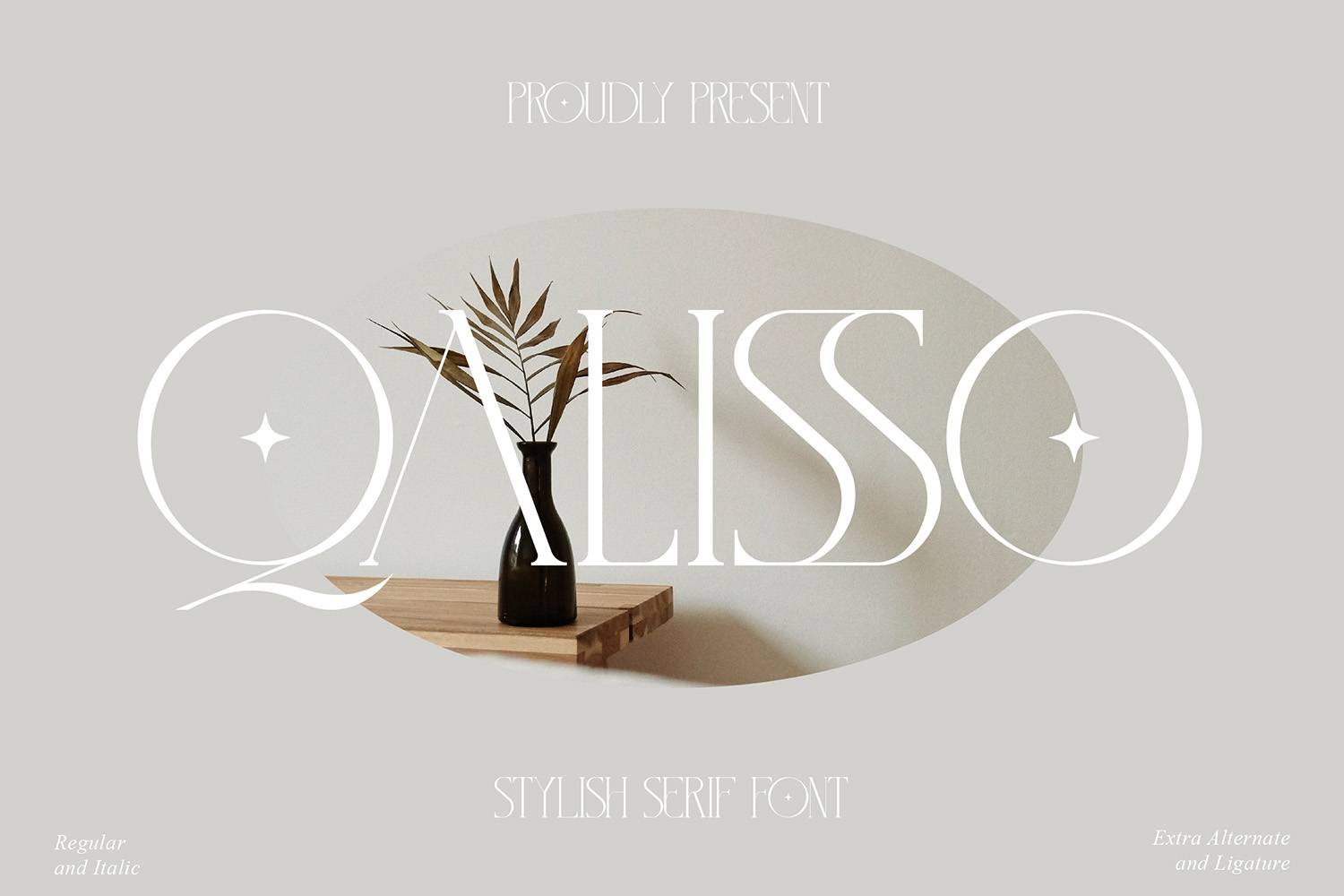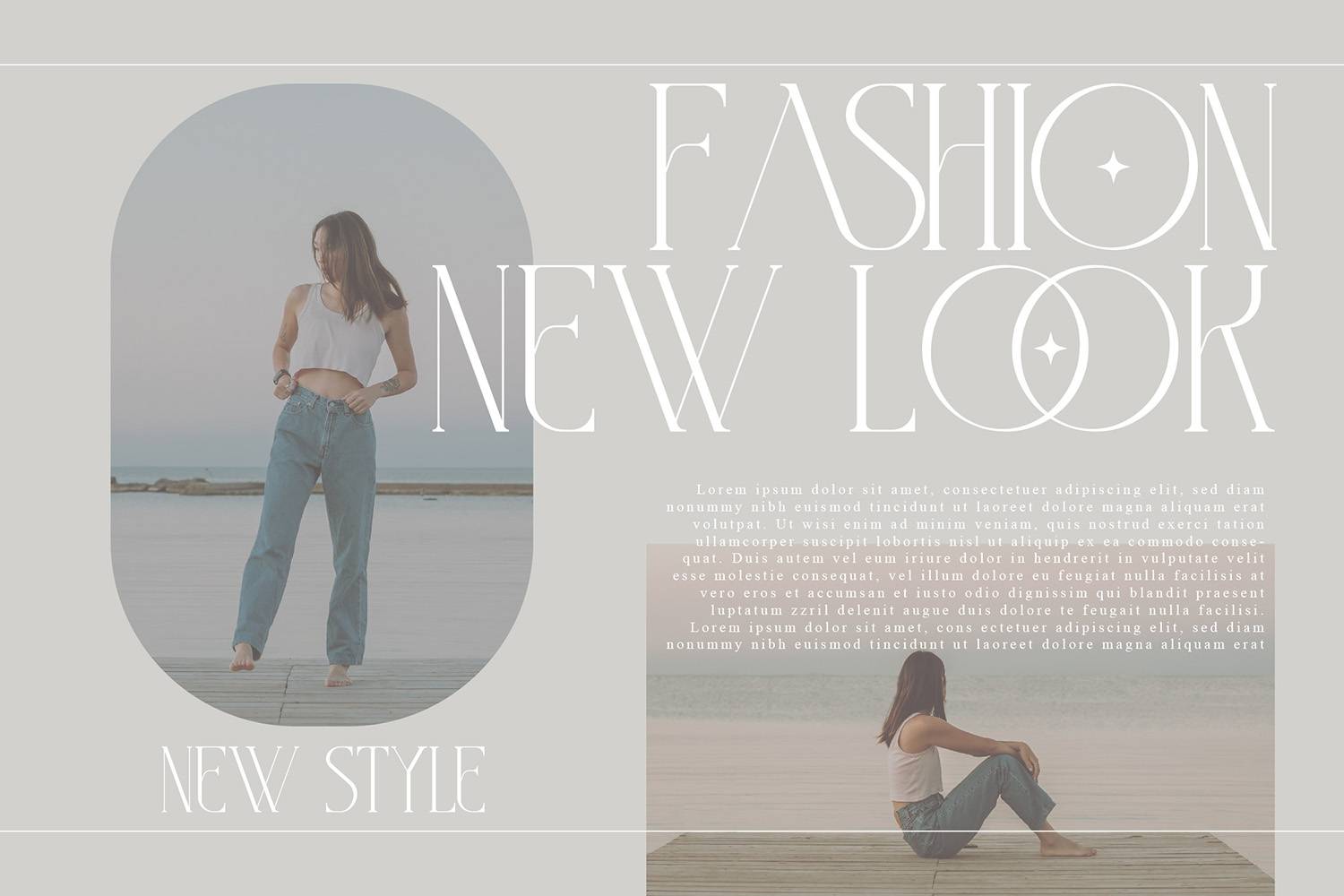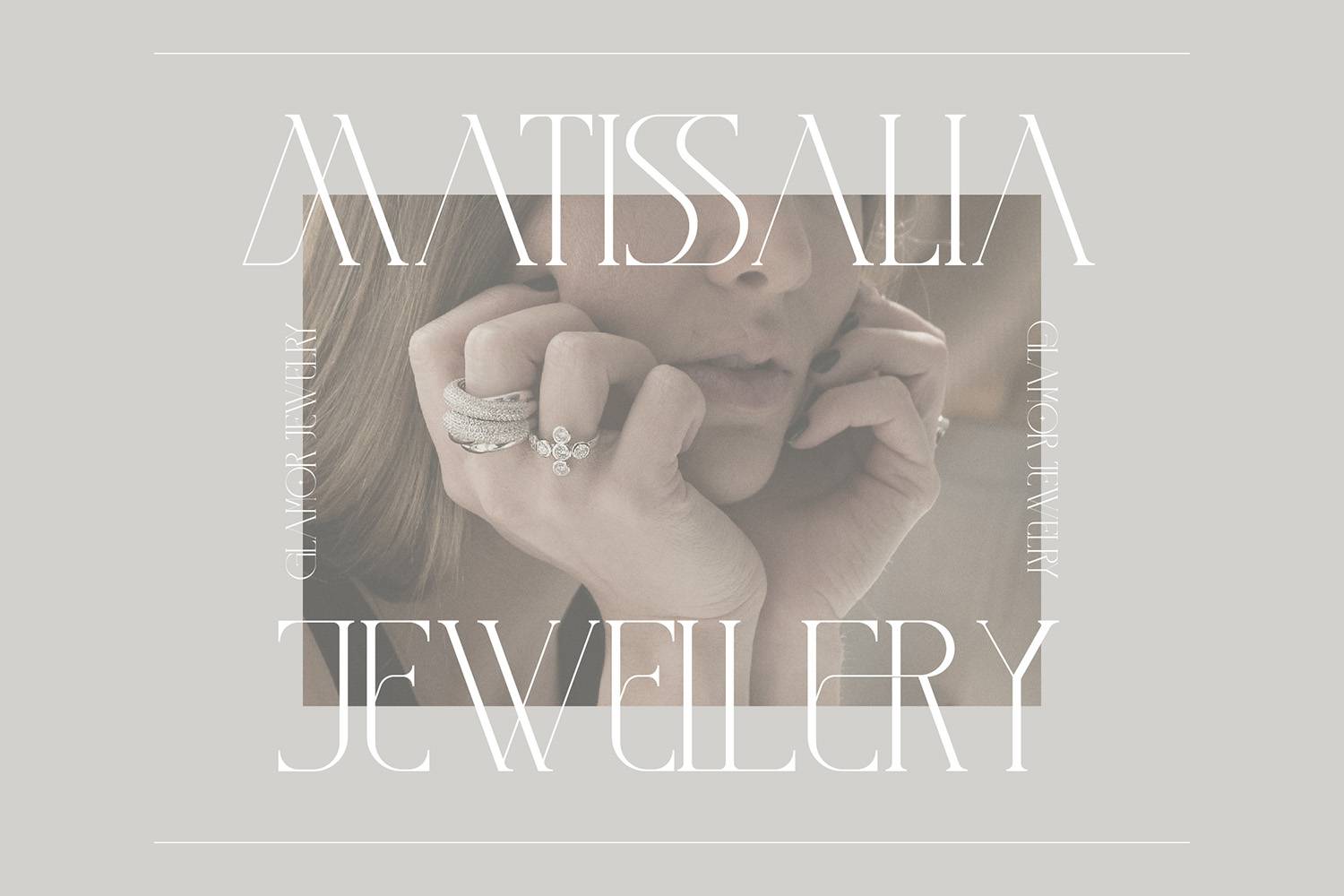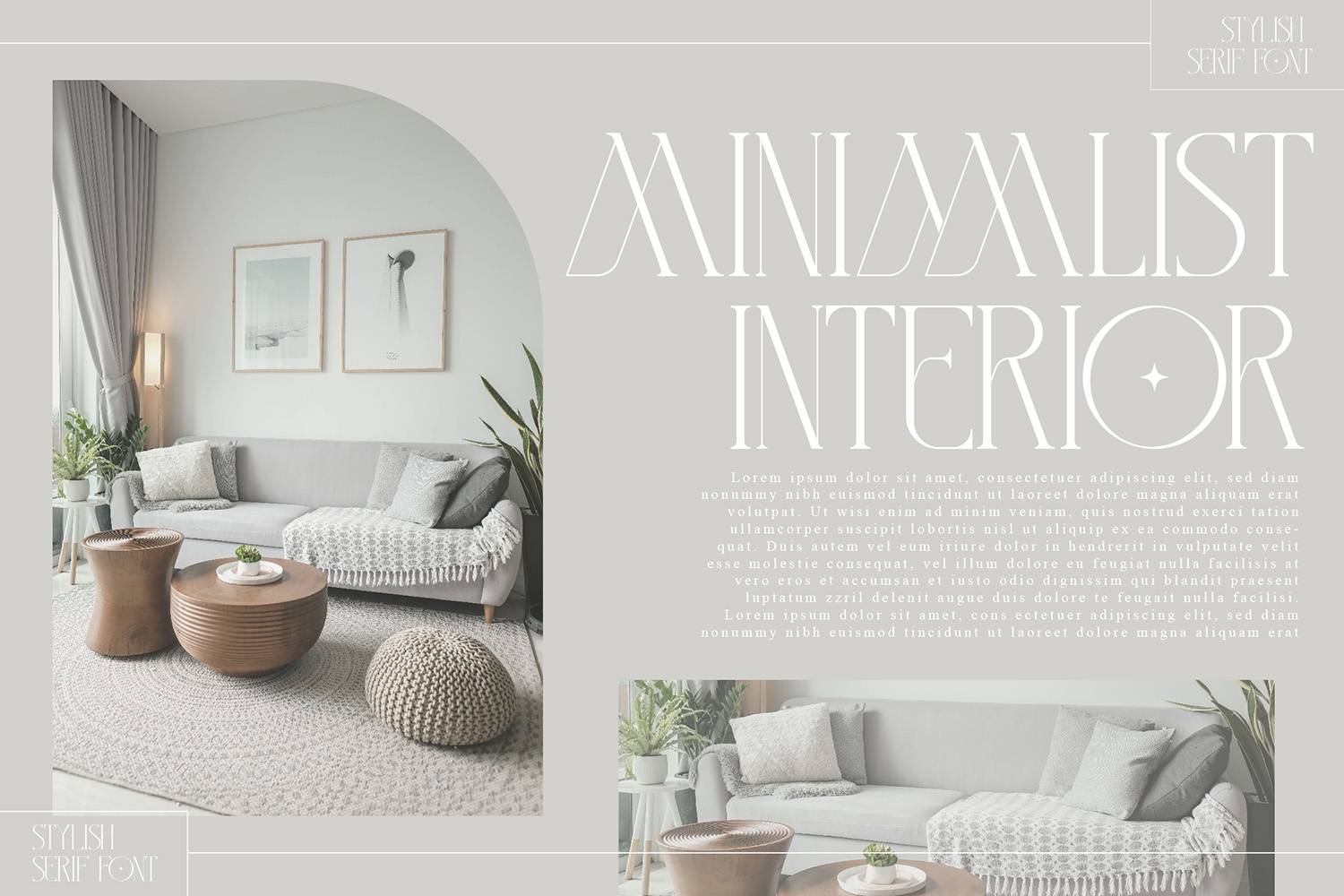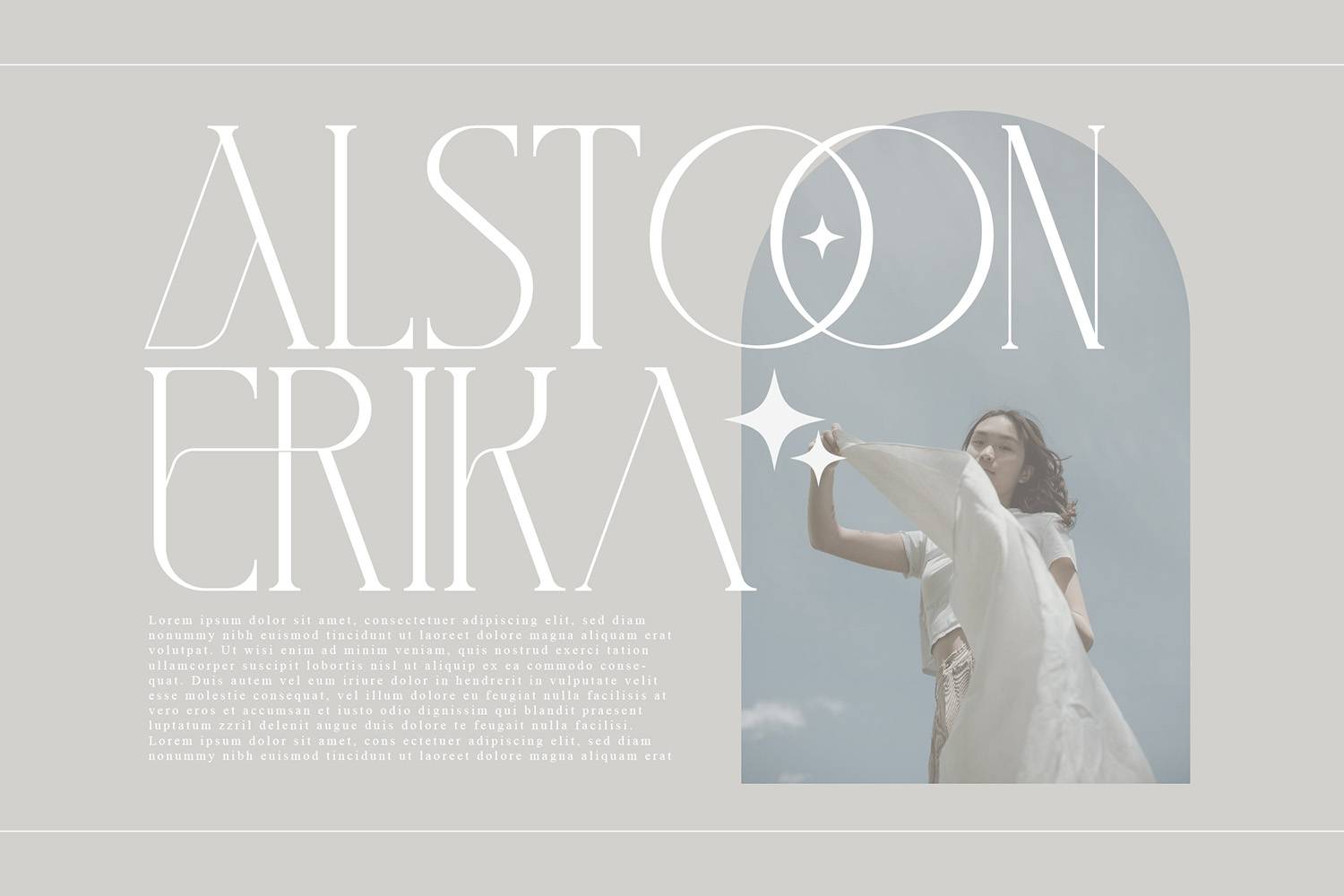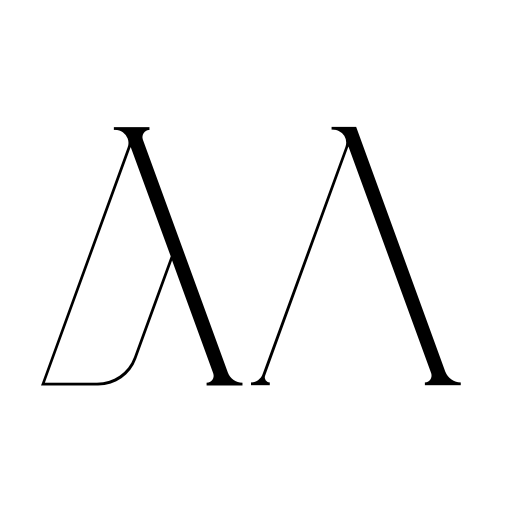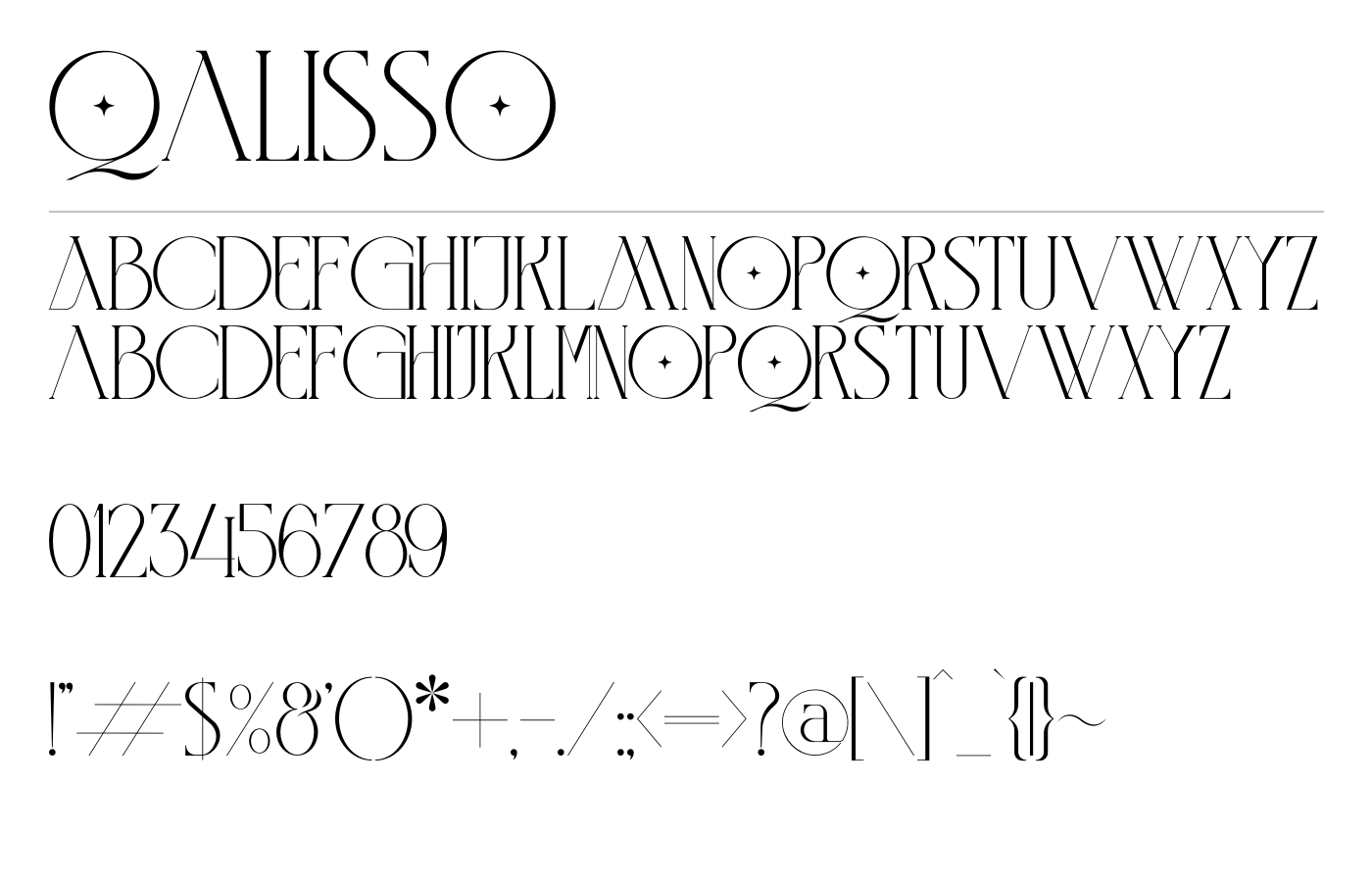
Qalisso is a slender serif font with a high contrast between thick and thin strokes, featuring elegant, stylized letterforms that convey luxury and sophistication. Its tall, narrow characters and delicate details make it ideal for high-end branding, fashion, and editorial use where a refined, modern aesthetic is desired. This font works best in large sizes for headlines or logos, adding a touch of elegance and exclusivity to any design.
Qalisso Font
About Qalisso Font